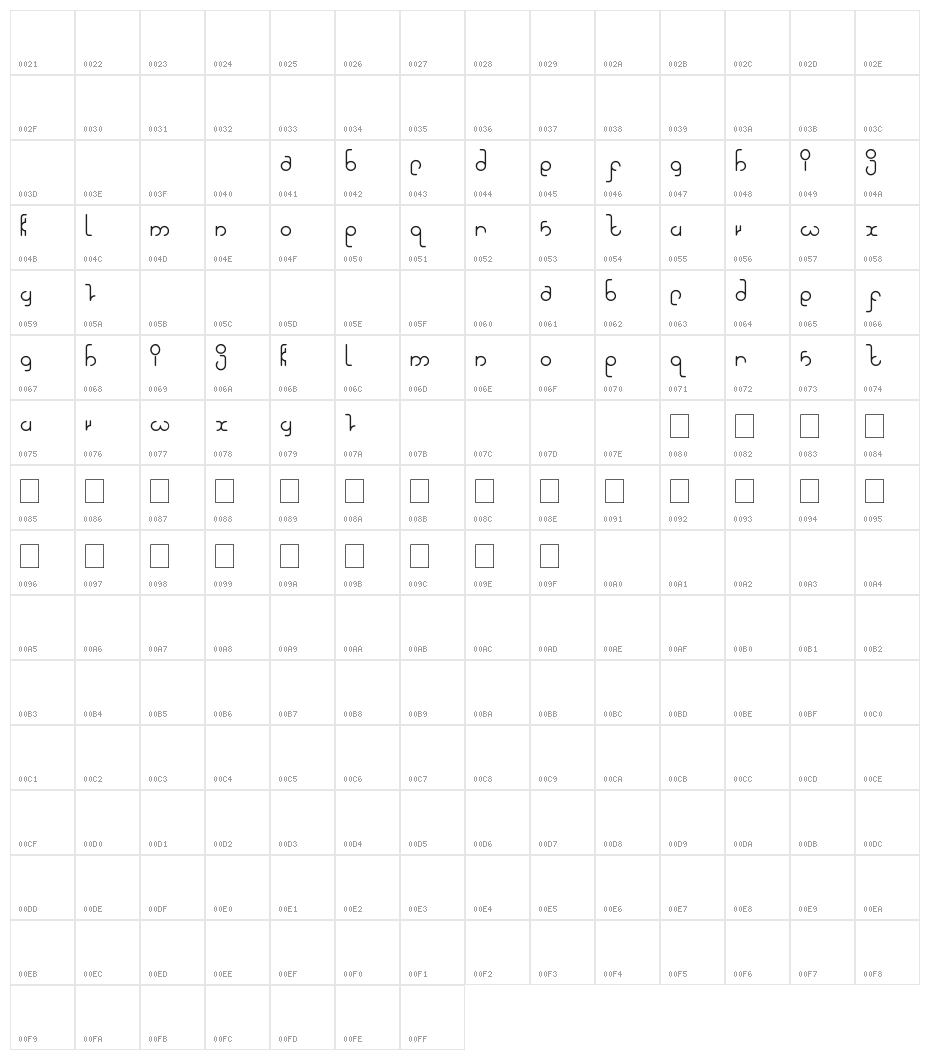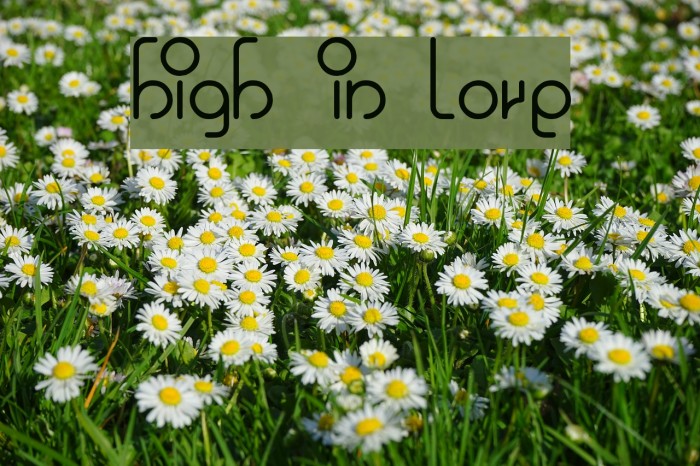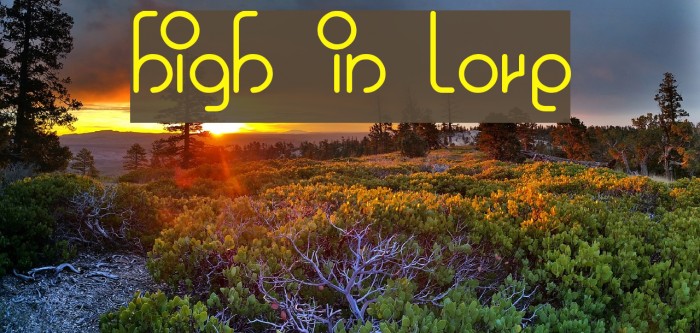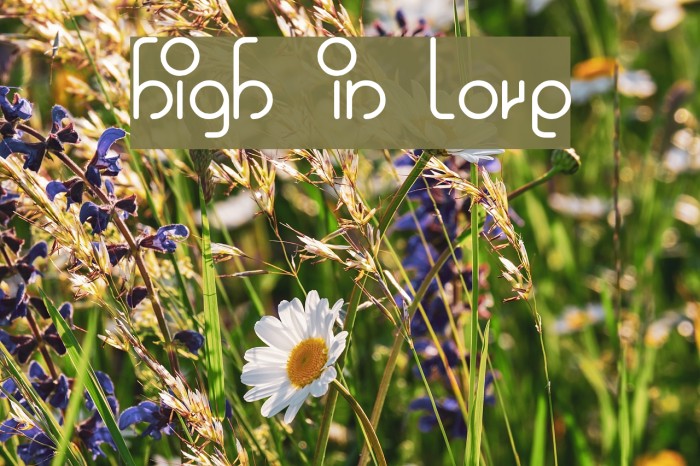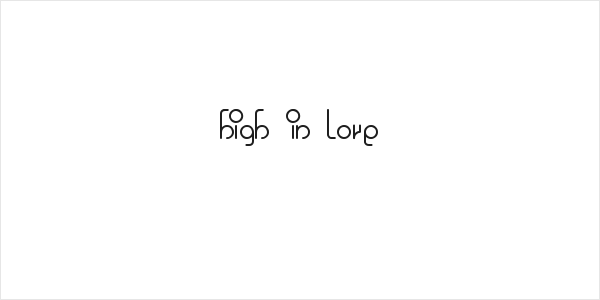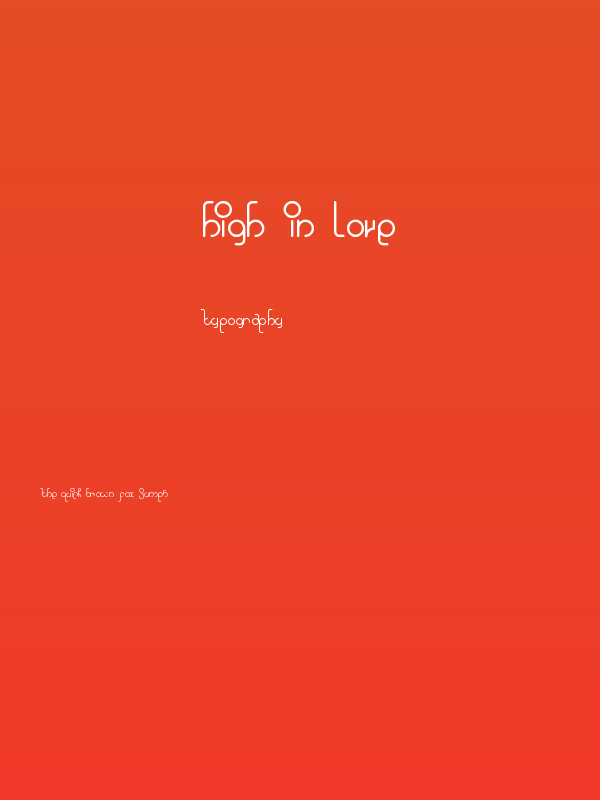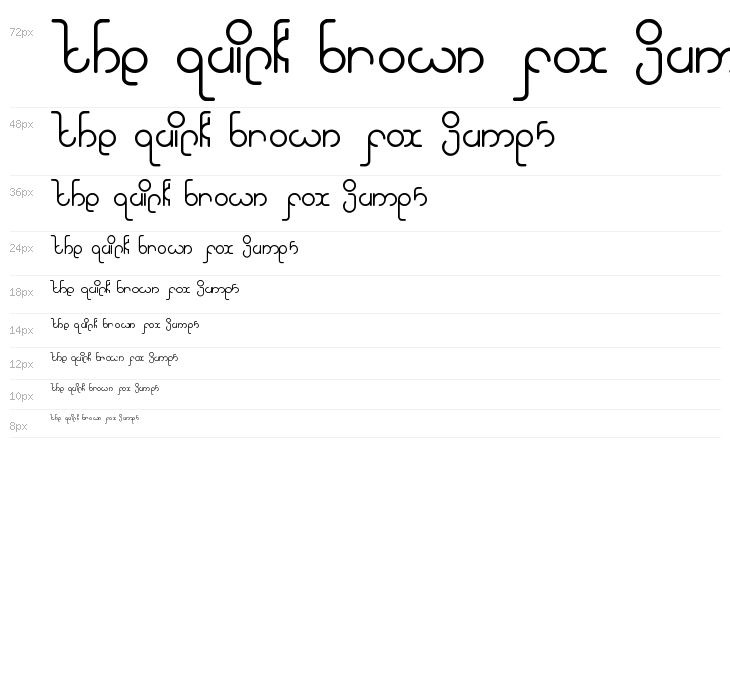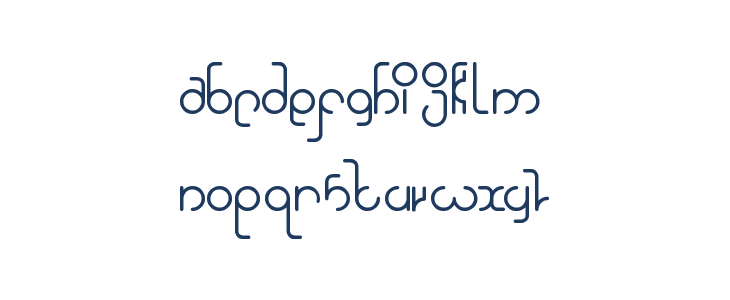
high in love Font
high in love Description
This font features a unique and artistic design with an emphasis on rounded and flowing shapes. Each character is crafted with a continuous line that creates a sense of movement and fluidity. The letters have a whimsical and playful appearance, making them stand out with their distinctive curves and loops. The overall aesthetic is modern and creative, suitable for projects that require a touch of elegance and individuality. The font's design is both eye-catching and readable, making it versatile for various applications.
Use CaseLogos, Headlines, Artistic displays
Proposed ProjectsIdeal for creative projects such as branding, invitations, posters, and artistic displays.